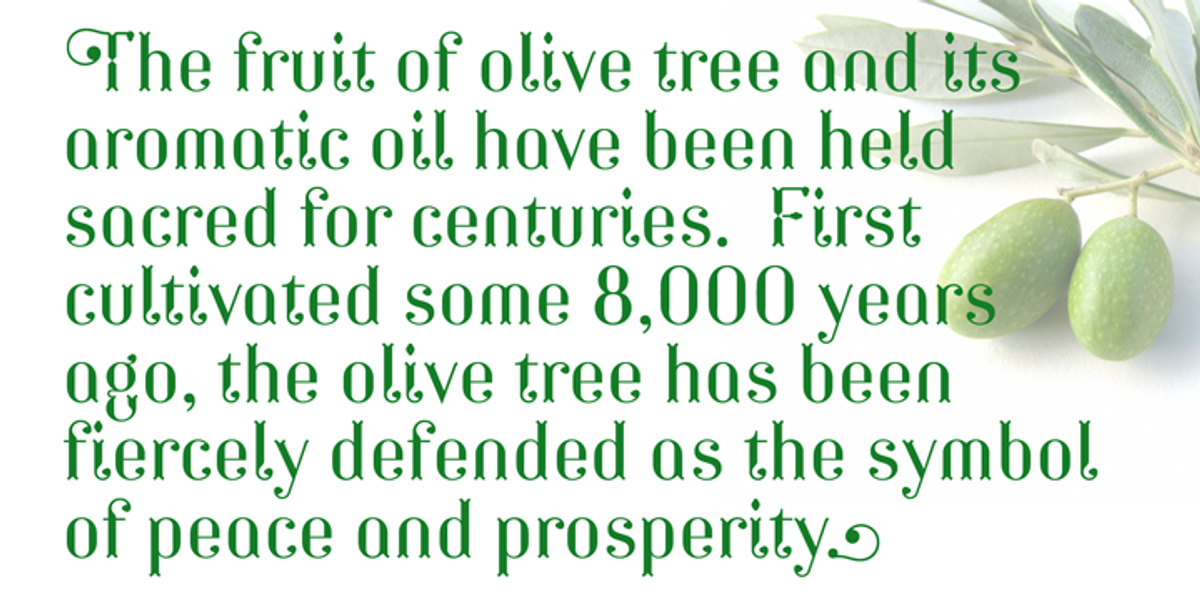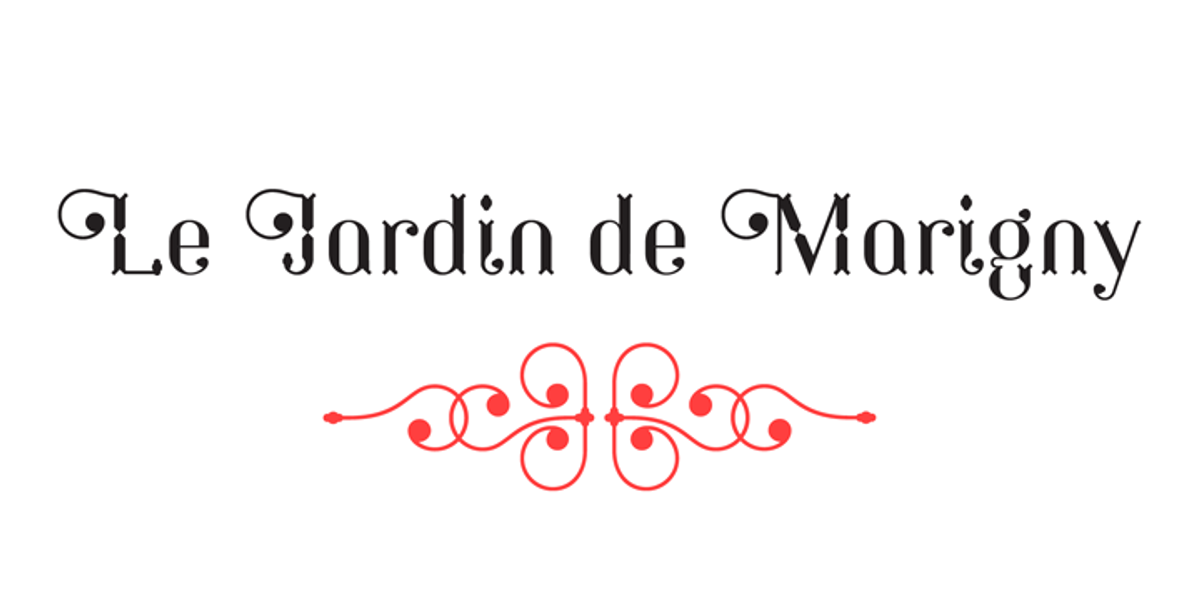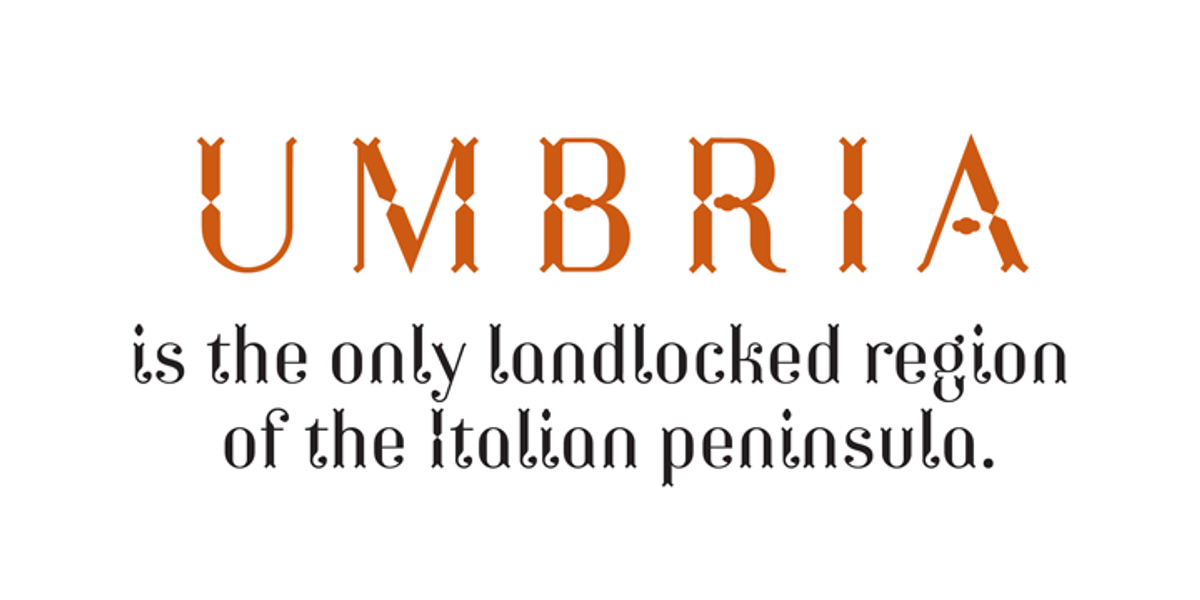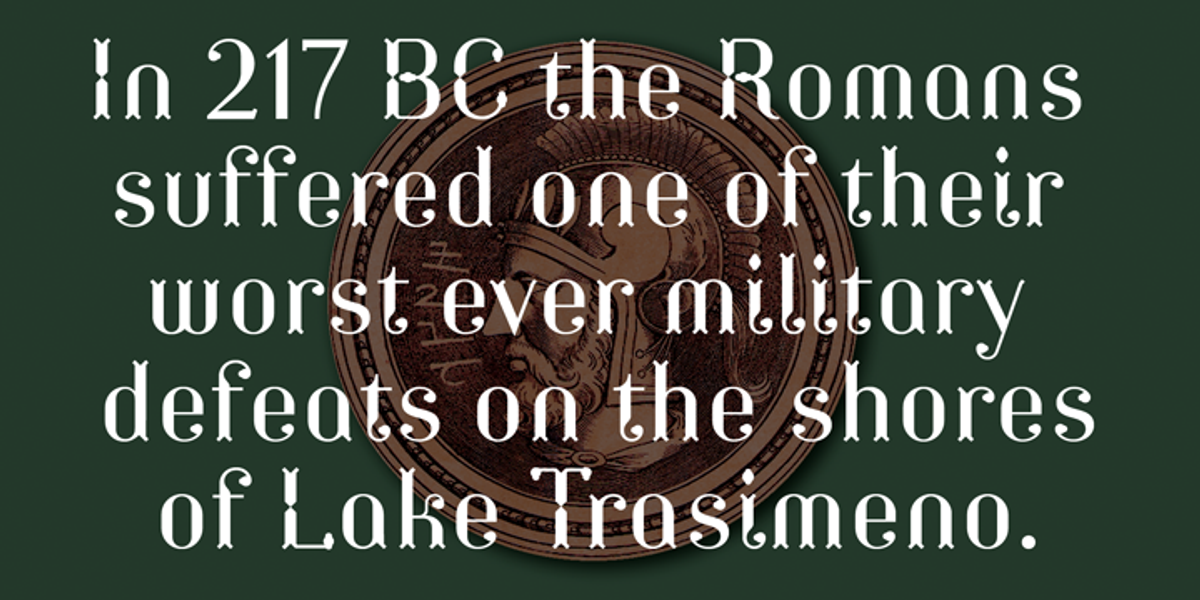
Umbria
Umbria is a decorative display typeface well-suited for titles, logos, magazines, posters, and short text paragraphs. Its design features geometric shapes, curly flourishes, and dotted embellishments.